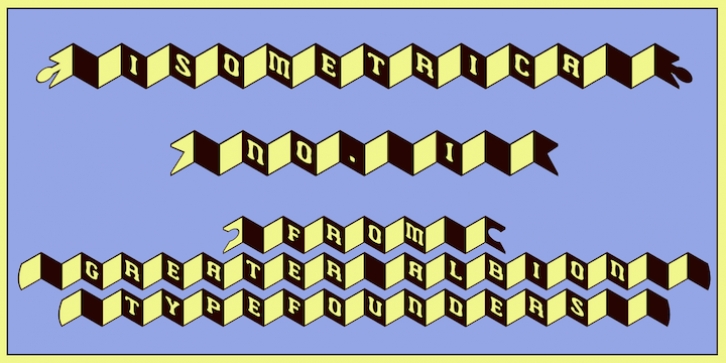
Isometrica is a dingbat and kids font family. This typeface has five styles  and was published by Greater Albion Typefounders.
Isometrica is the latest in Greater Albion’s line of ‘Banner’ typefaces.  Like all of the banner faces they lend themselves to the design of mastheads and logos.  Isometrica is also a meeting of architectural drawing and typeface design, given bold two coloured concertina banners with letters appearing page by page.  A range of decorative end pieces are also included.  Bring your designs to life with lettering that stands up off the page!
Isometrica No1·
Isometrica No2·
Isometrica No3·
Isometrica No4·